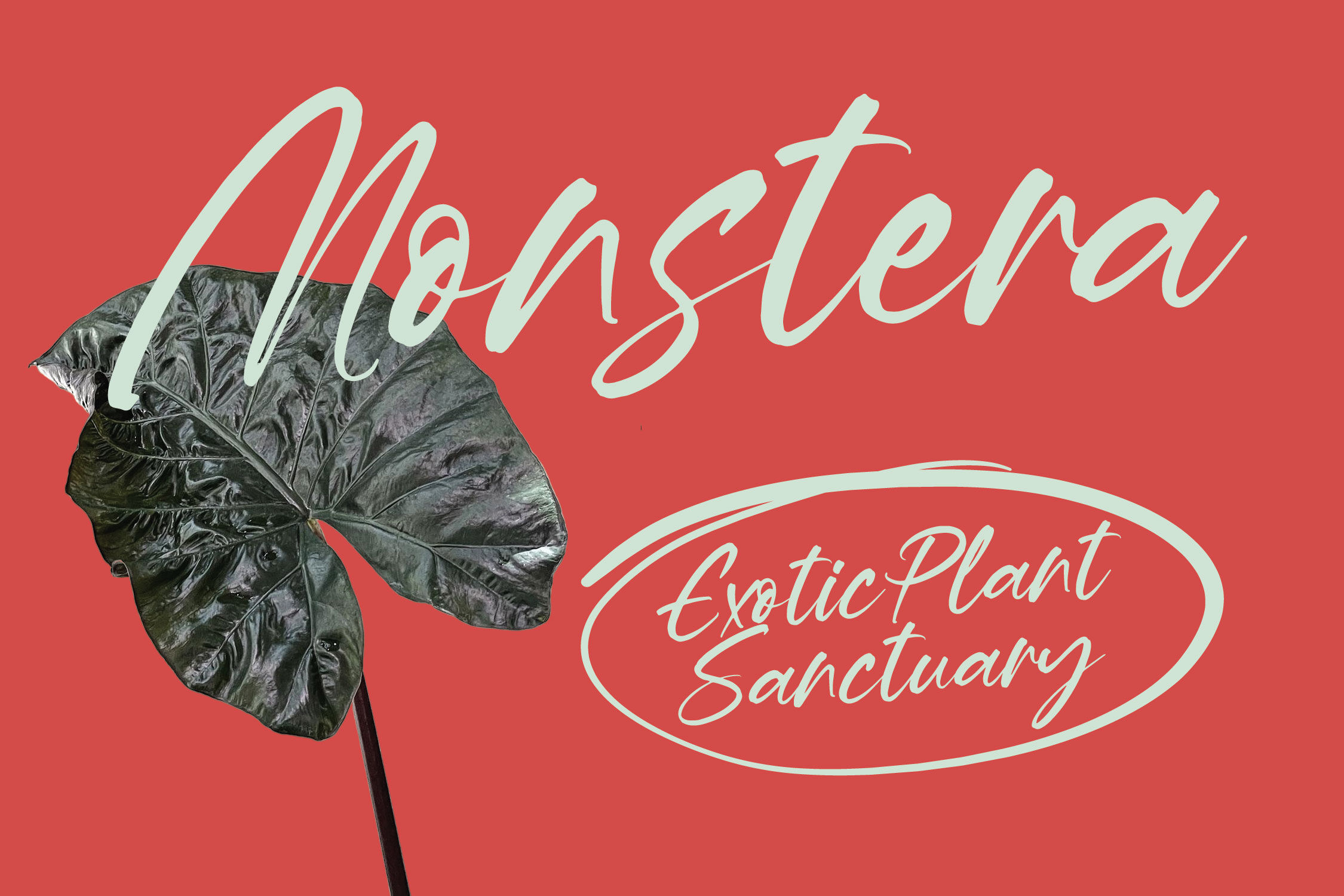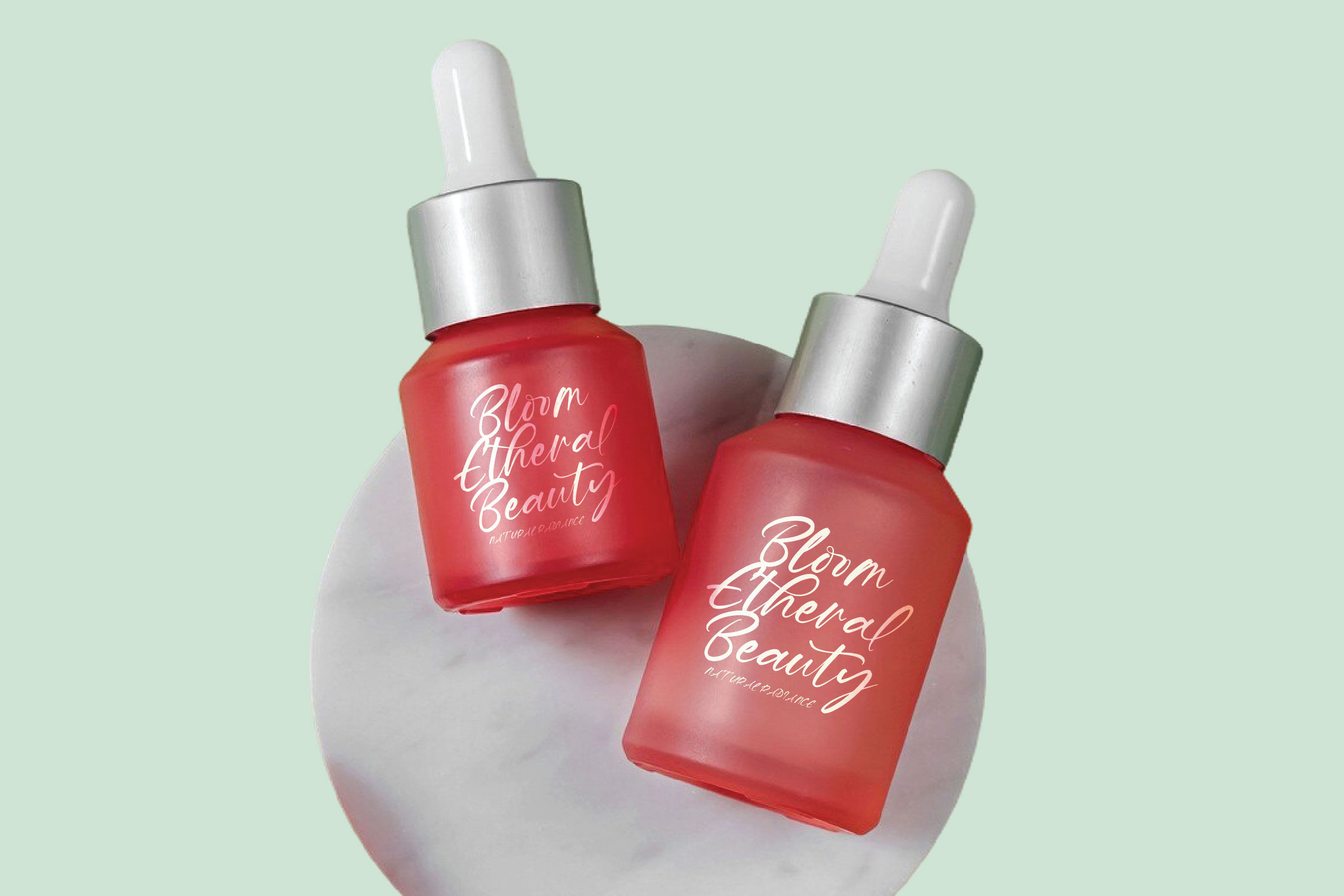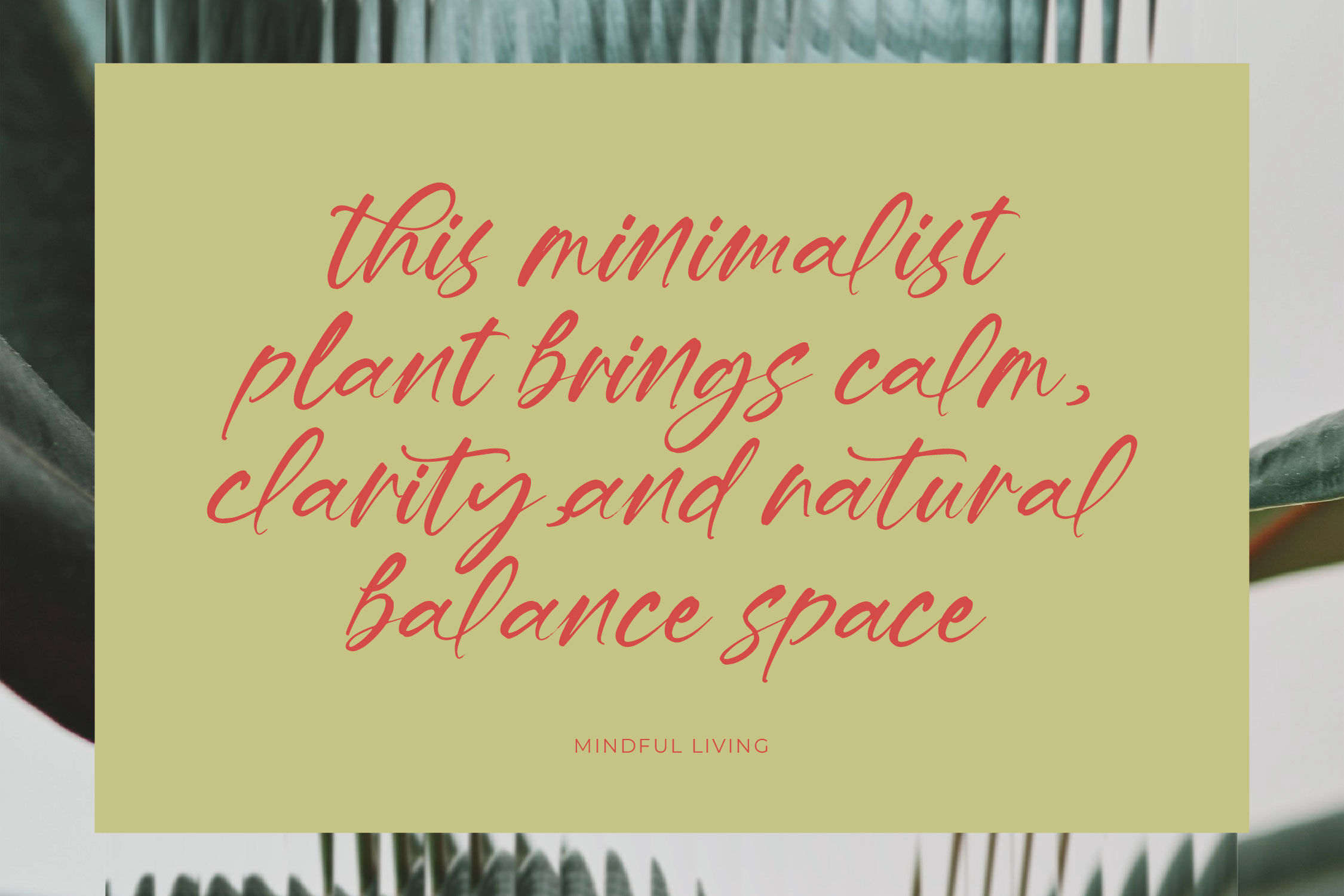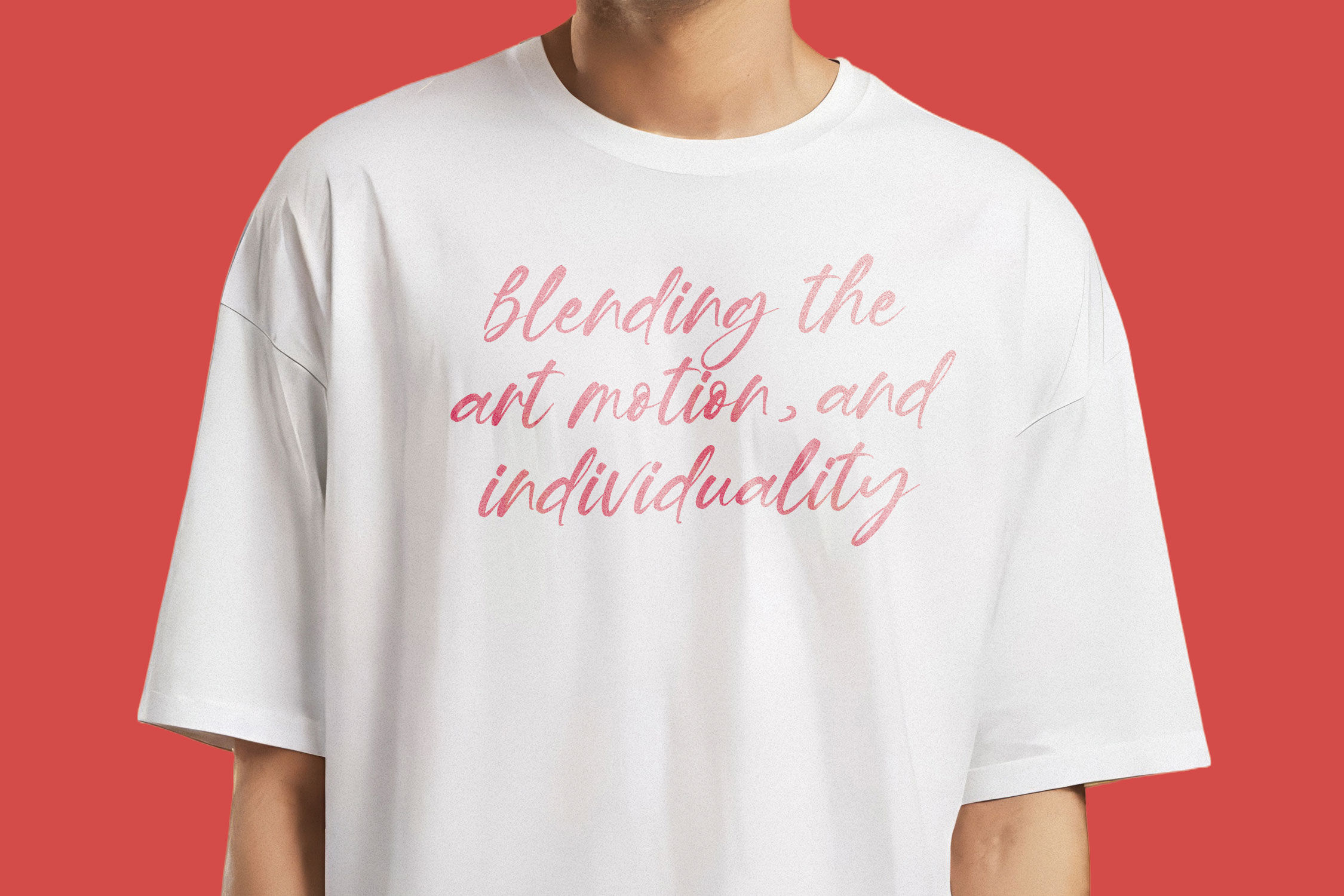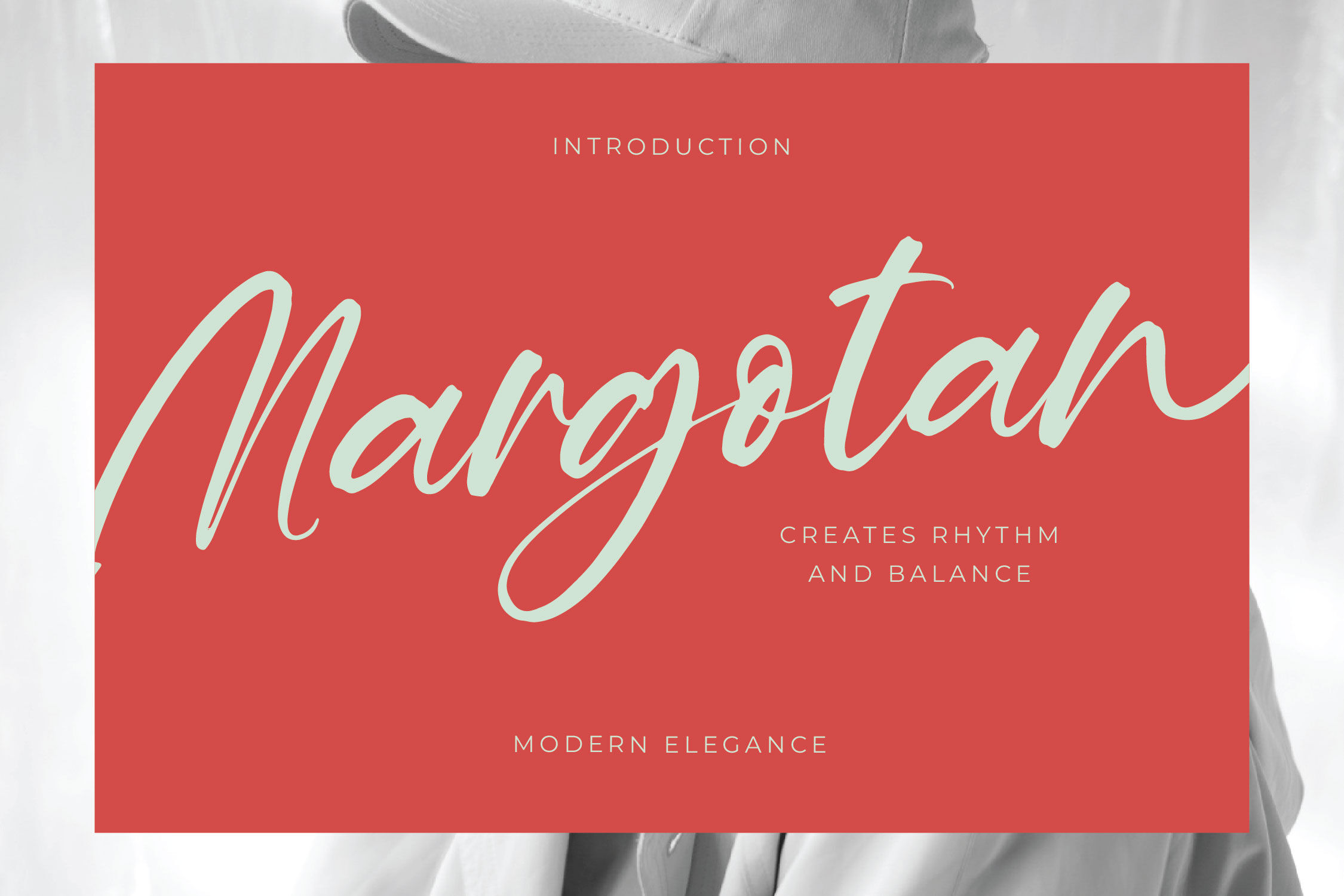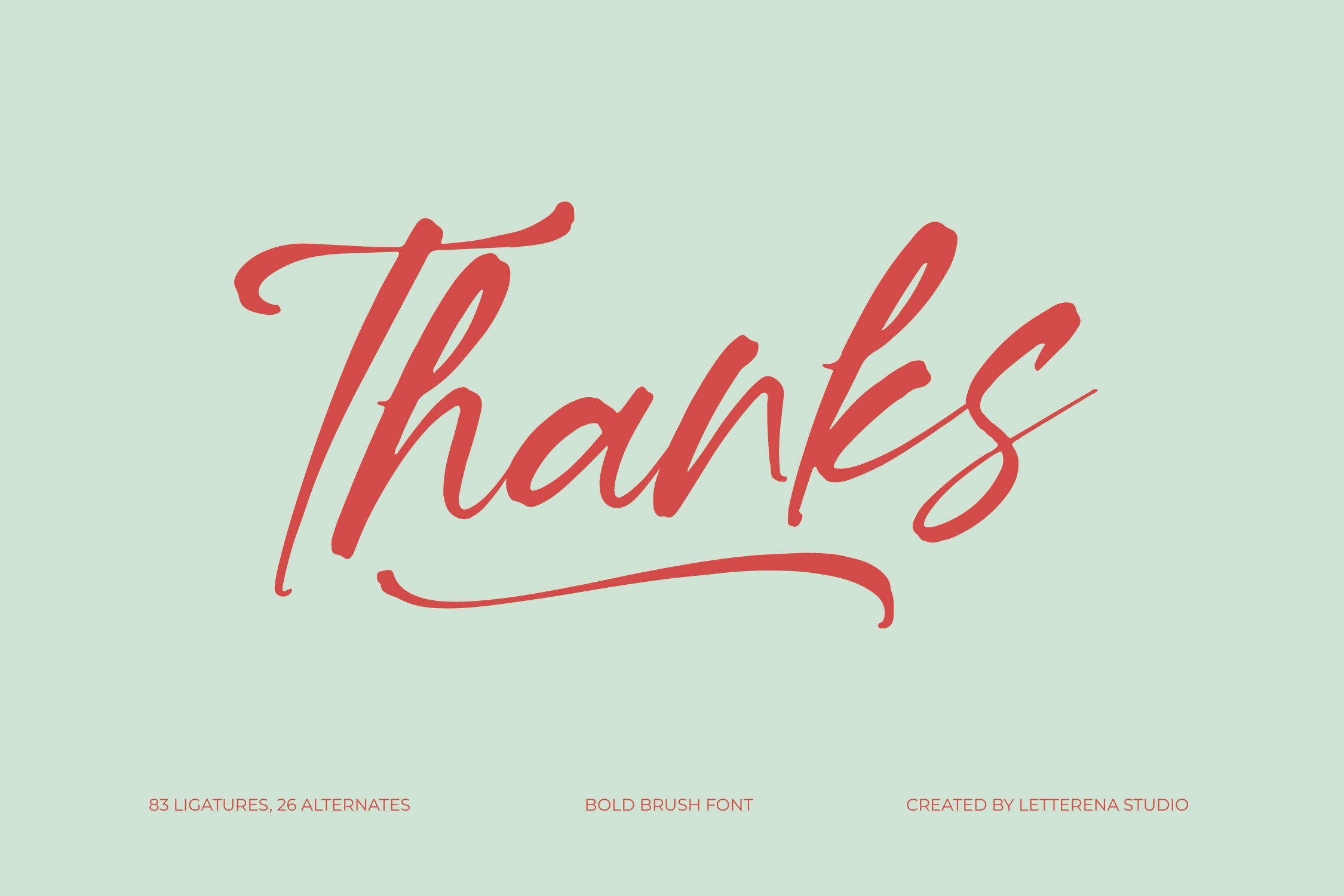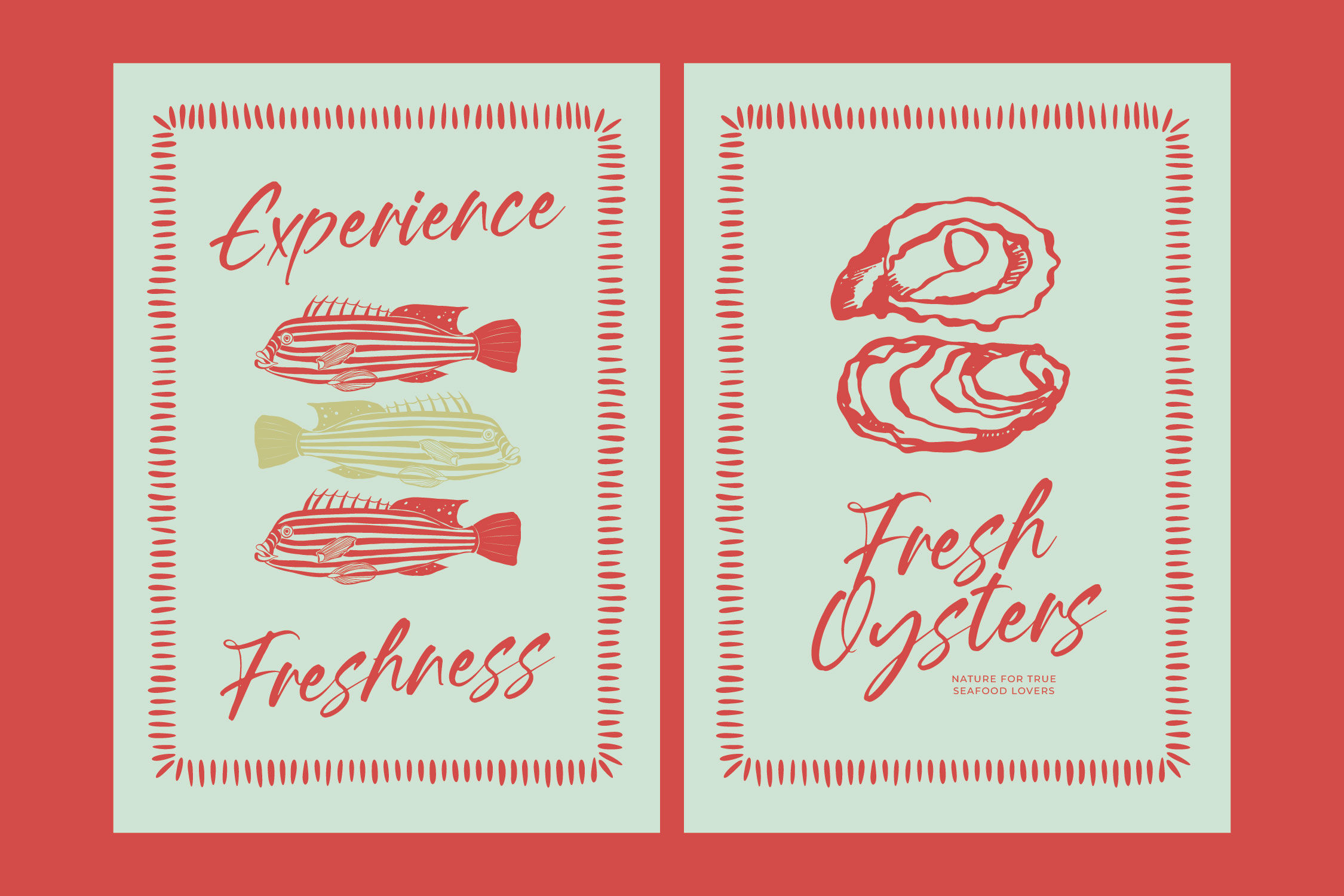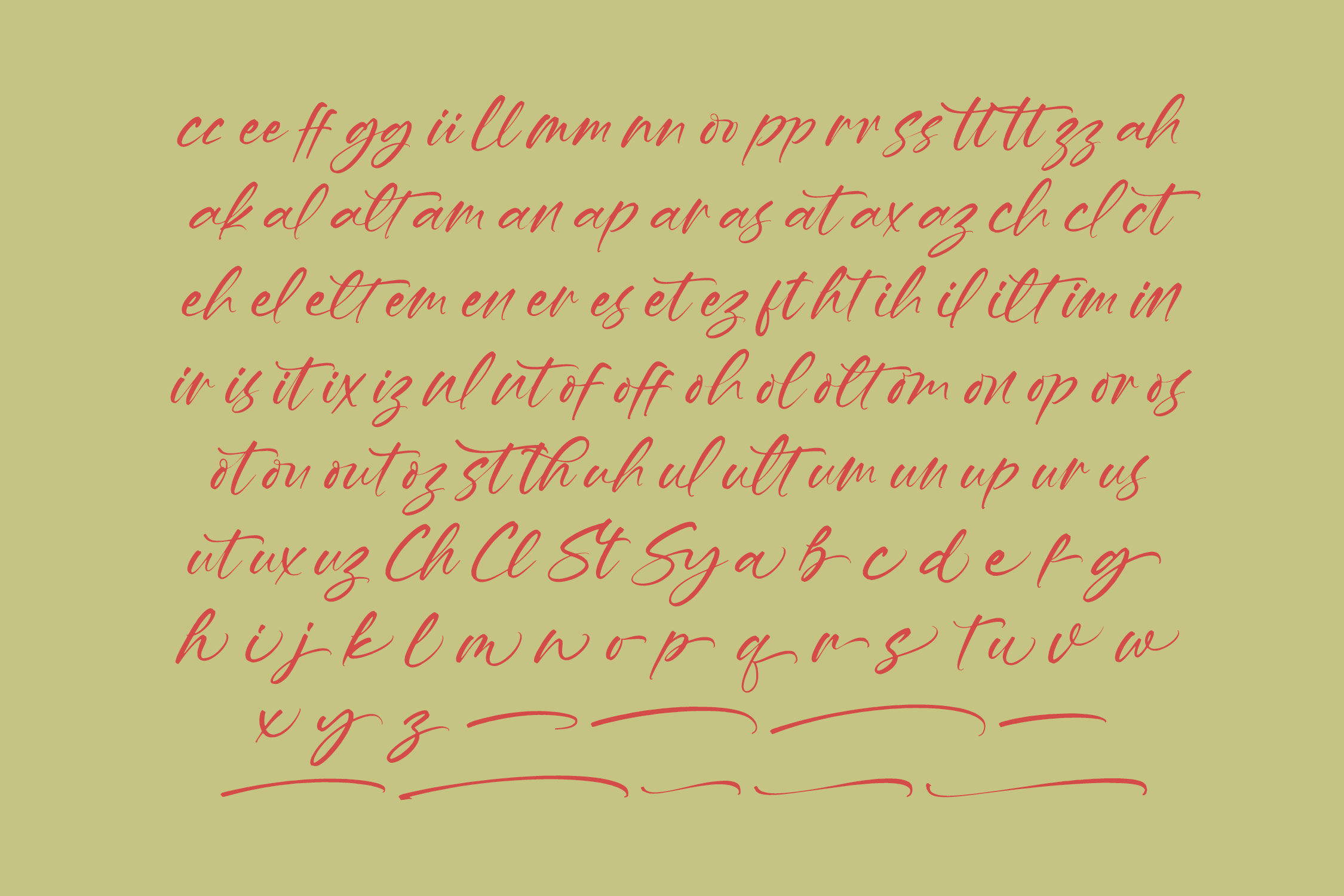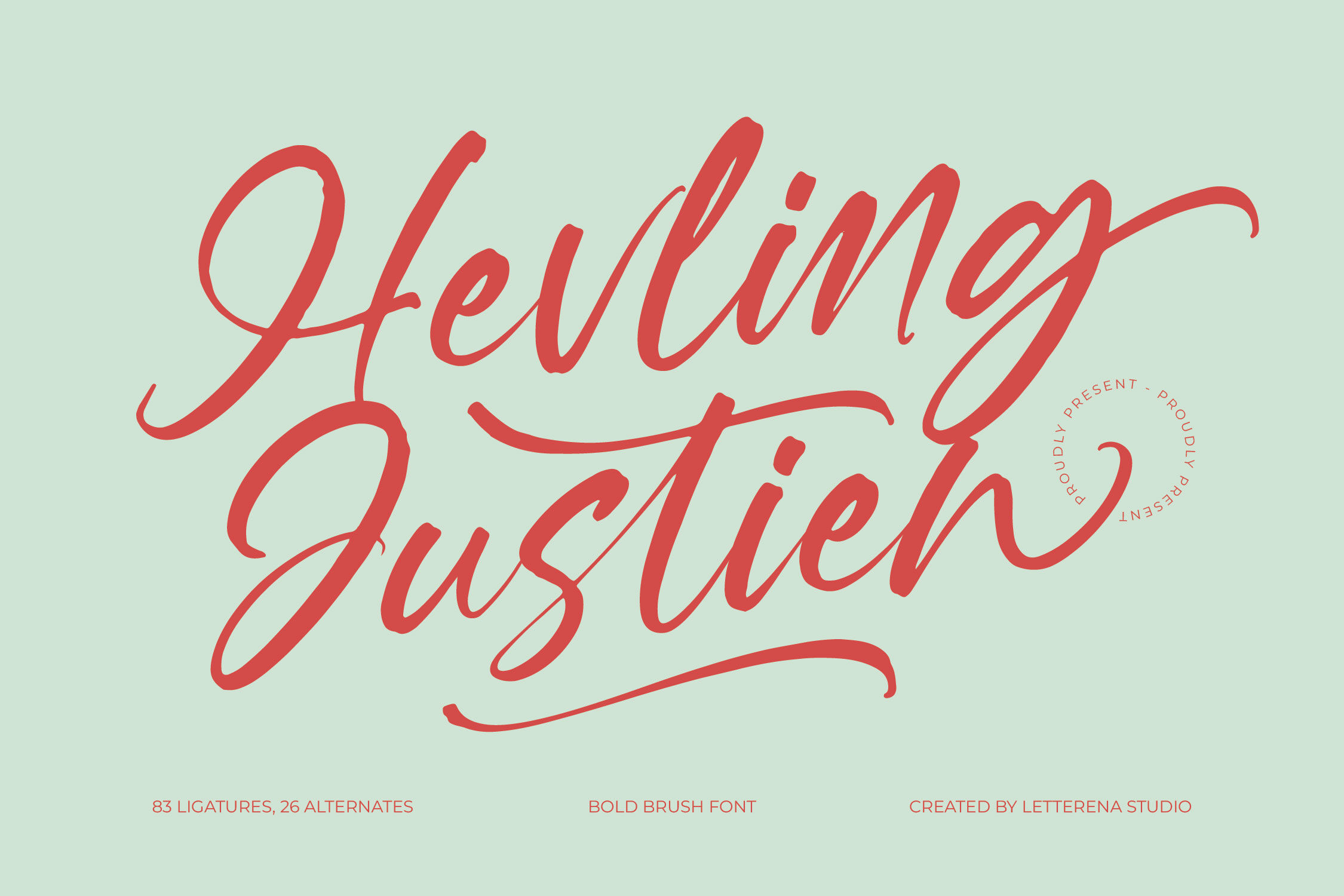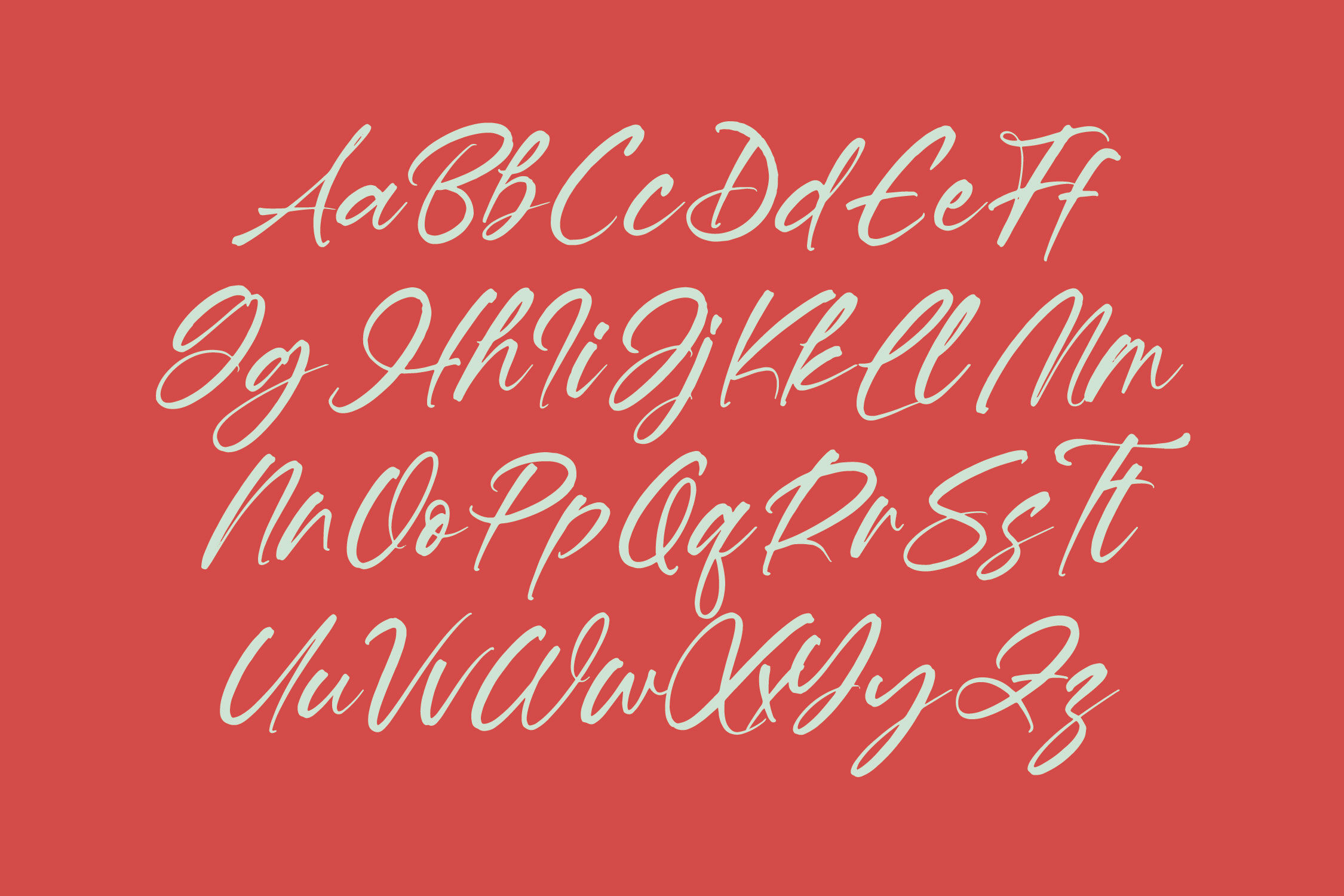
Hevling Justien - Bold Brush Font
Hevling Justien - Bold Brush Font , Hevling Justien is a bold handwritten brush font with expressive strokes and natural flow, crafted to add personality and elegance to any design. Featuring 83 ligatures and 26 alternates, it offers smooth lettering and versatile stylistic options for standout results. Ideal for logos, branding, packaging, social media, wedding invitations, and modern creative projects, Hevling Justieh delivers a strong handcrafted aesthetic while remaining clean and readable. Perfect for designers who want a stylish, energetic, and premium brush-script feel.